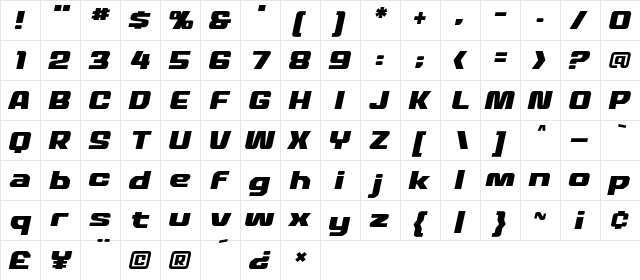
MechEffects Two LC BB Italic
| Foundry | Nate Piekos. Blambot.com |
| Designer | Nate Piekos |
Design Context for MechEffects Two LC BB Typeface
MechEffects Two LC BB is a composed and adaptable typeface that performs quietly and consistently across a wide range of design contexts. The slanted form adds forward momentum and visual energy.
Pro Tip: Use MechEffects Two LC BB for emphasis, pull quotes, and subheadings where its slanted energy can add rhythm to the layout.